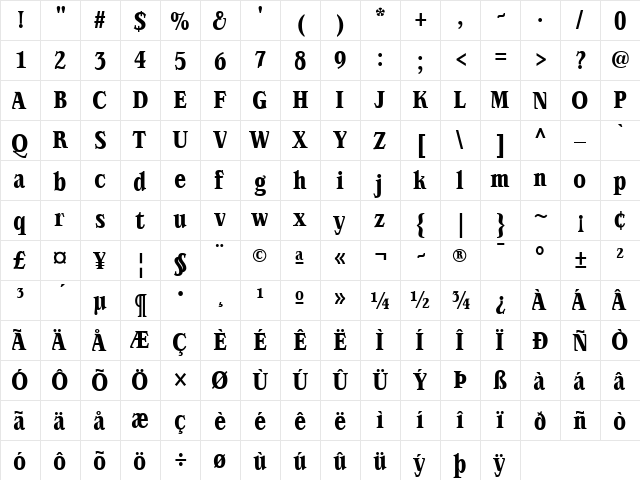
AIAlign Regular
Design Context for AIAlign Typeface
AIAlign is a composed and adaptable typeface that performs quietly and consistently across a wide range of design contexts.